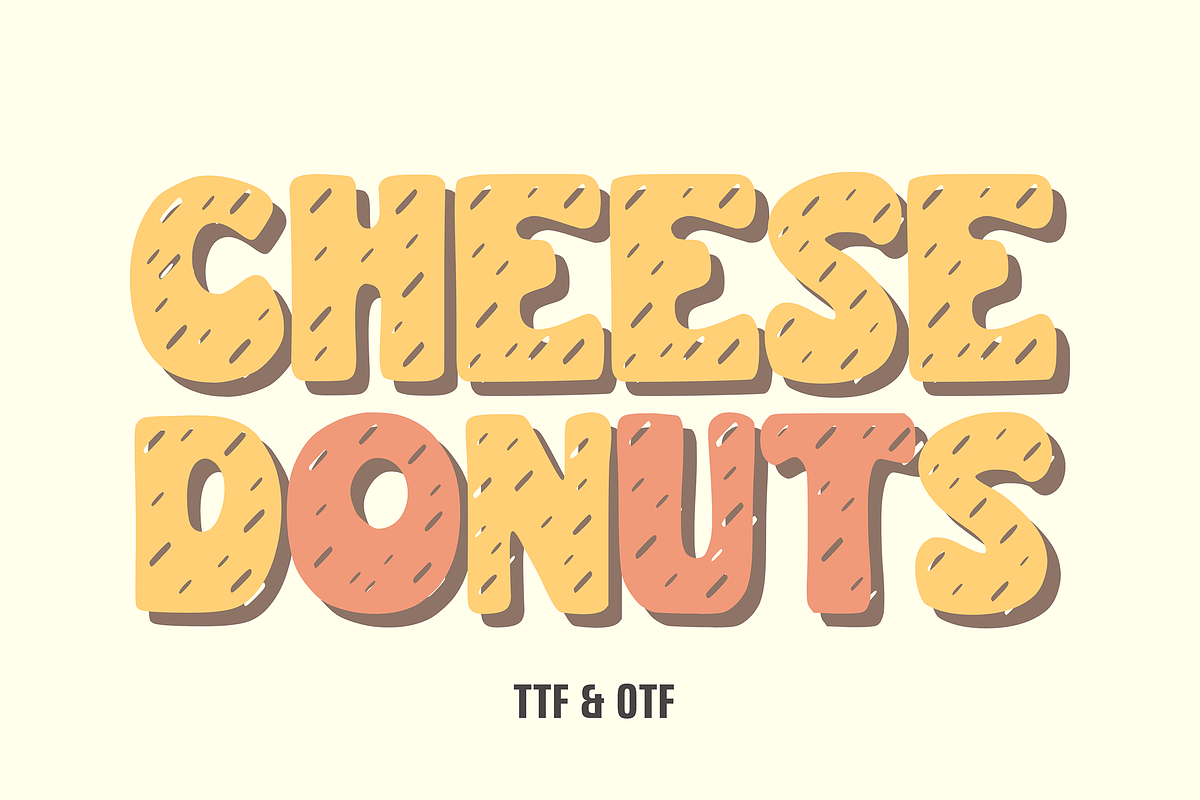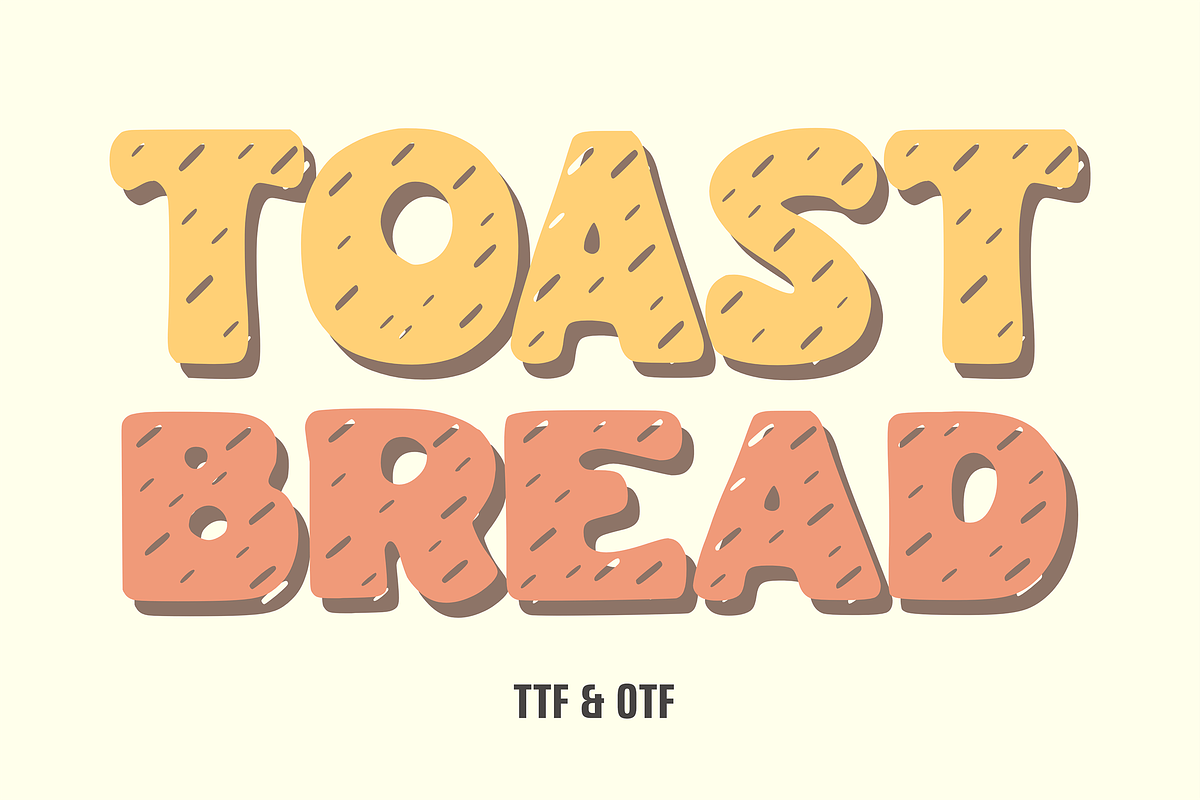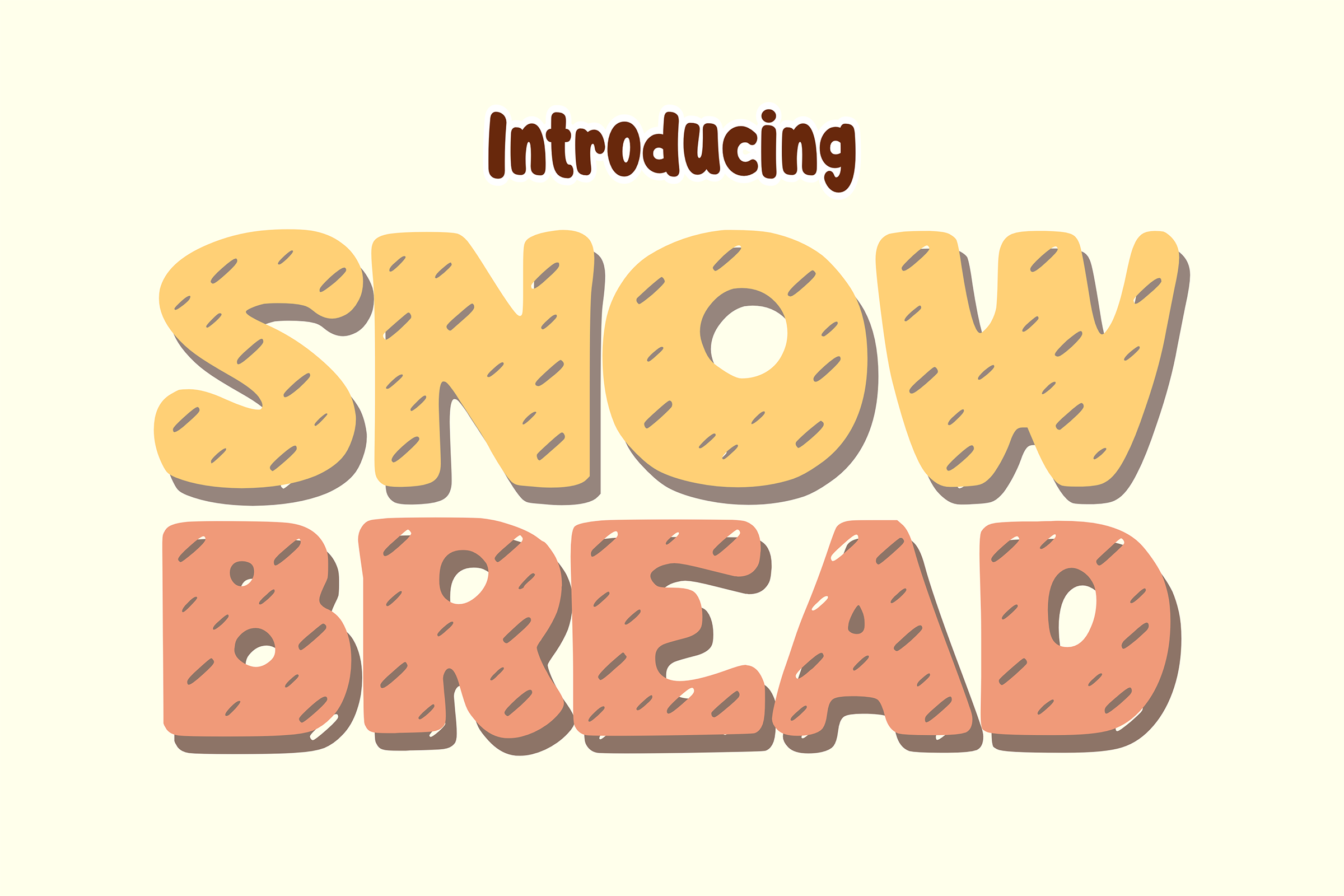
Snow Bread - Cartoon Font Types
Snow Bread is a food brand font that brings fun and excitement to your projects. With its modern style and look, this font promises to be a great addition to your creative endeavors. Let Snow Bread add a pop of color and whimsy to your designs, suitable for everything from comics, stickers, logos, and food brands.